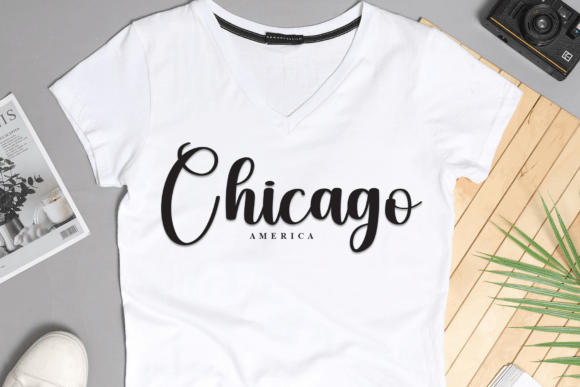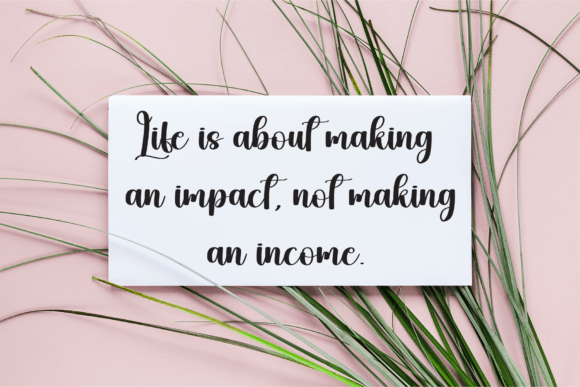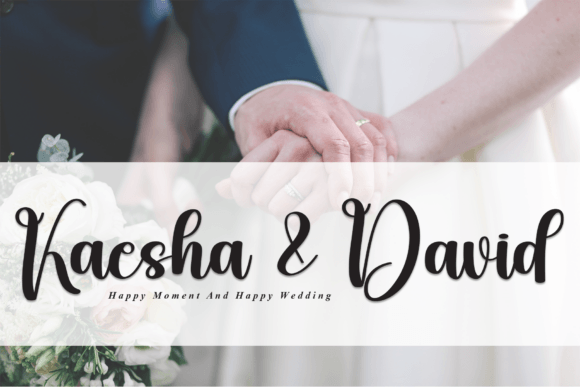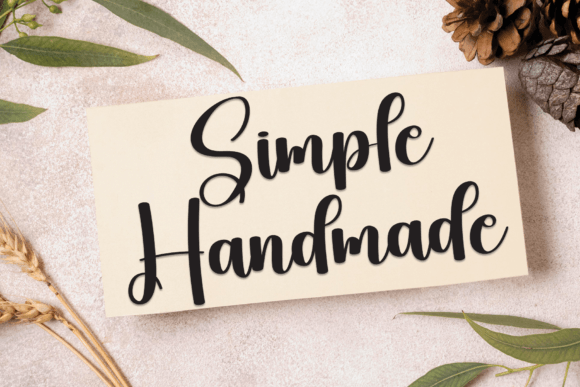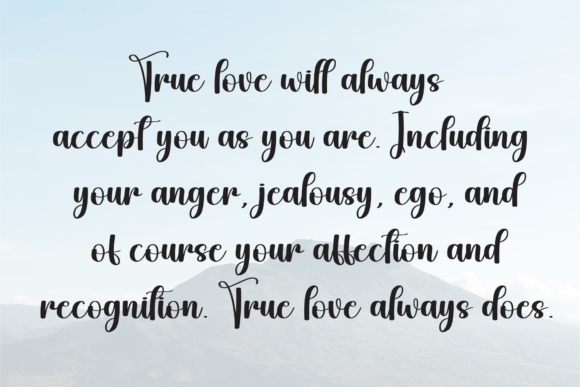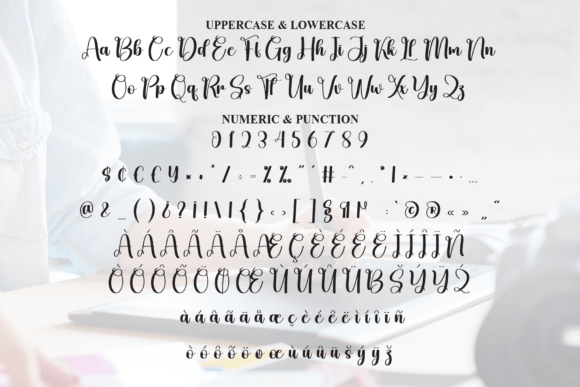
Introducing Autography Font: The Sweetest Handwritten Display Font for Your Designs
Are you tired of using the same old fonts for your designs? Do you want to add a touch of personality and whimsy to your projects? Look no further than Autography Font, a charming and inviting handwritten display font that’s sure to bring a smile to your face. With its delightful quirks and sweet, friendly vibe, this font is perfect for designers and crafters who want to infuse their work with joy and fun.
The Essence of Autography Font
Autography Font is a one-of-a-kind handwritten display font that’s filled with character and personality. Its sweet and friendly essence makes it perfect for a wide range of design projects, from wedding invitations and greeting cards to social media graphics and blog posts. Whether you’re a professional designer or a DIY crafter, this font is sure to inspire your creativity and bring a touch of magic to your work.
Delightful Quirks and Unique Features
One of the things that sets Autography Font apart from other fonts is its delightful quirks and unique features. This font is full of charming imperfections and irregularities that give it a handmade, organic feel. From the subtle variations in letter size and spacing to the playful flourishes and swashes, every element of Autography Font has been carefully crafted to create a sense of joy and whimsy.
Autography Font is incredibly versatile and can be used for a wide range of design projects. Here are just a few ideas to get you started:
- Wedding Invitations: Add a touch of romance and whimsy to your wedding invitations with Autography Font. Its sweet and friendly vibe makes it perfect for wedding stationery, from save-the-date cards to thank-you notes.
- Greeting Cards: Give your greeting cards an artistic boost with Autography Font. Whether you’re creating birthday cards, holiday cards, or get-well cards, this font is sure to add a touch of personality and charm.
- Social Media Graphics: Add a pop of personality to your social media graphics with Autography Font. From Facebook posts to Instagram stories, this font is sure to make your content stand out.
- Blog Posts: Add a touch of whimsy to your blog posts with Autography Font. Whether you’re writing about fashion, food, or travel, this font is sure to bring a smile to your readers’ faces.
Why Choose Autography Font?
So why choose Autography Font for your design projects? Here are just a few reasons:
- Unique and Eye-Catching: Autography Font is a one-of-a-kind font that’s sure to grab attention and make your designs stand out.
- Easy to Read: Despite its playful and whimsical vibe, Autography Font is incredibly easy to read, making it perfect for body text and headlines.
- Versatile: Autography Font can be used for a wide range of design projects, from digital graphics to print materials.
- High-Quality: Autography Font is a high-quality font that’s been carefully crafted to ensure that it looks great in any design.
In conclusion, Autography Font is a charming and inviting handwritten display font that’s perfect for designers and crafters who want to add a touch of personality and whimsy to their work. With its delightful quirks, unique features, and sweet and friendly vibe, this font is sure to inspire your creativity and bring joy to your designs. Whether you’re creating wedding invitations, greeting cards, social media graphics, or blog posts, Autography Font is the perfect choice. So why wait? Download Autography Font today and start creating designs that bring a smile to people’s faces!